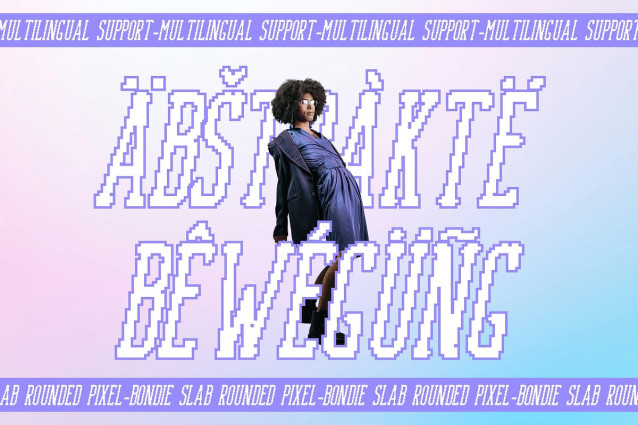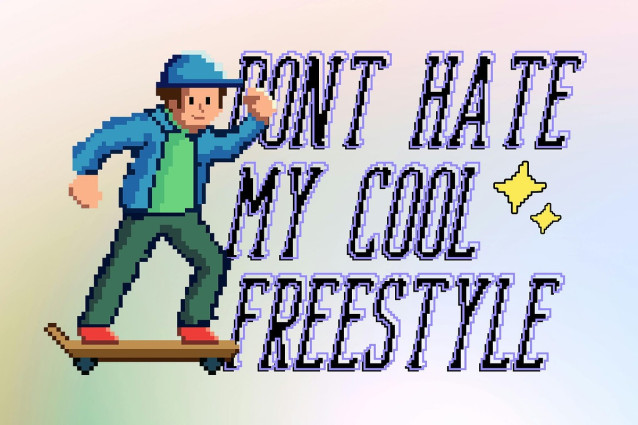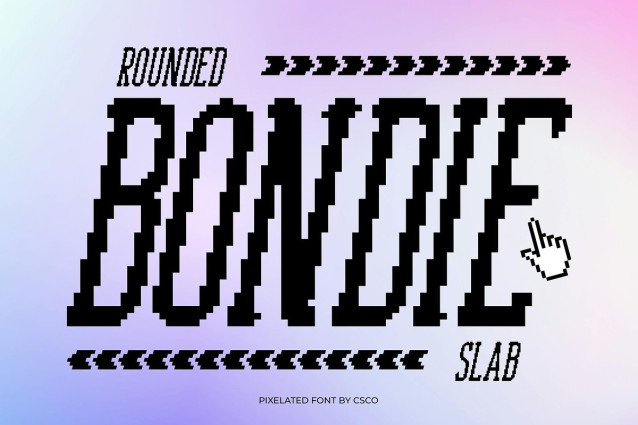
Bondie Slab Rounded Pixel combines the bold strength of a slab serif with the nostalgic charm of pixelated design. Its jagged, blocky forms echo the look of old computer screens and early video games, creating a retro yet timeless feel.
Strong Slab Serif Character With its sturdy slab serif details, this font adds structure and weight to designs while maintaining a playful, tech-inspired edge. The rounded pixel forms strike a balance between geometric rigidity and approachable style, making it both eye-catching and versatile.
Perfect for Technology and Gaming Ideal for projects that celebrate technology and digital culture, Bondie Slab Rounded Pixel shines in gaming visuals, tech branding, and retro-inspired posters. Its distinctive pixel texture enhances logos, packaging, and user interfaces with a strong sense of character.
Versatile Retro Display Font Beyond digital contexts, Bondie Slab Rounded Pixel works for branding, editorial titles, and creative layouts seeking a bold, unique voice. Its fusion of retro technology and slab serif design ensures it will stand out across both modern and nostalgic applications.